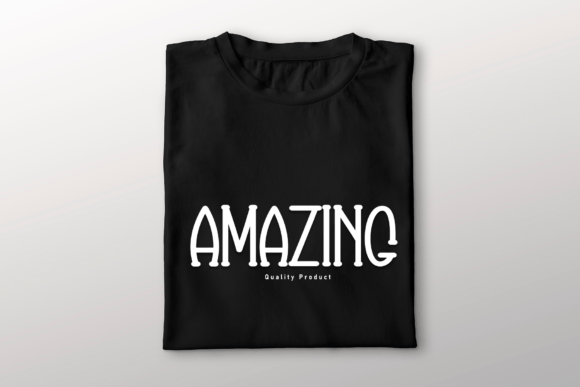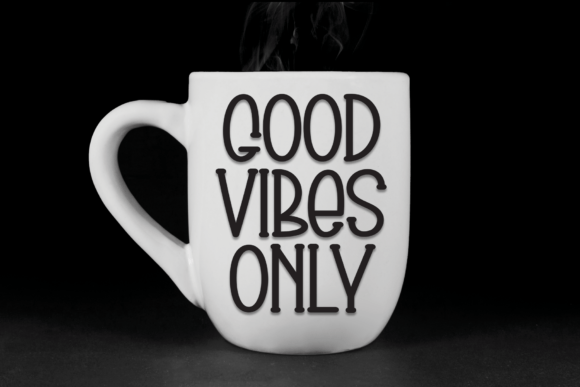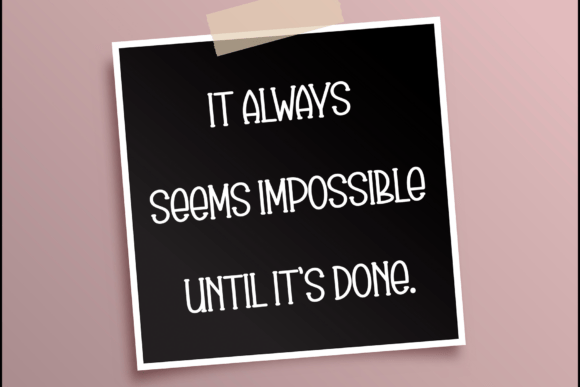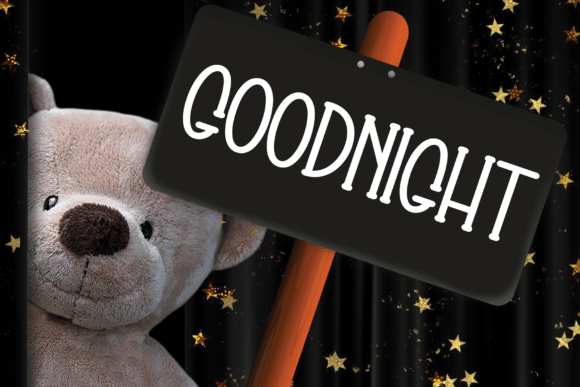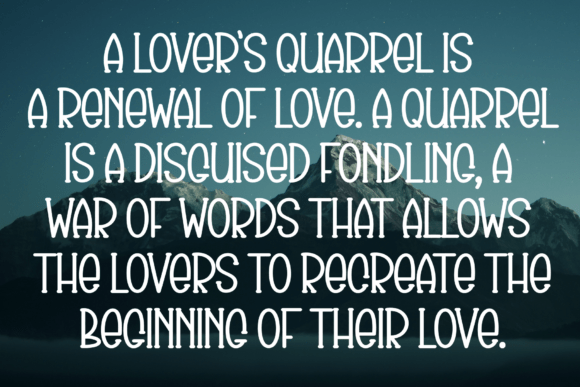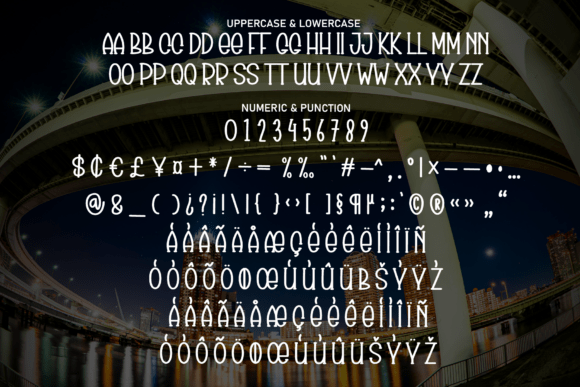
Introduction to Midnight Delihtful Font Font
Fonts play a crucial role in design, and the Midnight Delihtful Font font is a typeface that brings both character and versatility to any project. Whether you’re working on a branding project, a website, or a print design, the Midnight Delihtful Font font offers a unique style that can elevate your work.
Bring personality and flair to your designs with this playful, artistic typeface that captures the charm of natural handwriting with a bold, display-ready twist.
Perfect for posters, product packaging, branding, and social media graphics, this font adds a casual, human touch to any project Its expressive strokes and quirky vibe make it stand out while still feeling authentic and approachable.
Key Features of Midnight Delihtful Font Font
• ✅ Includes a wide range of glyphs and characters
• ✅ Ideal for logos, branding, websites, and print
Why Choose Midnight Delihtful Font Font?
The Midnight Delihtful Font font is more than just a typeface – it’s a design tool that helps you communicate your message with style and clarity. Its unique character set and versatile design make it suitable for a wide range of applications, from elegant invitations to bold headlines.
With its carefully crafted letterforms and balanced proportions, the Midnight Delihtful Font font ensures readability and visual appeal across all mediums.
What makes Midnight Delihtful Font font special?
The Midnight Delihtful Font font stands out with its unique design, exceptional readability, and versatility across various design applications.